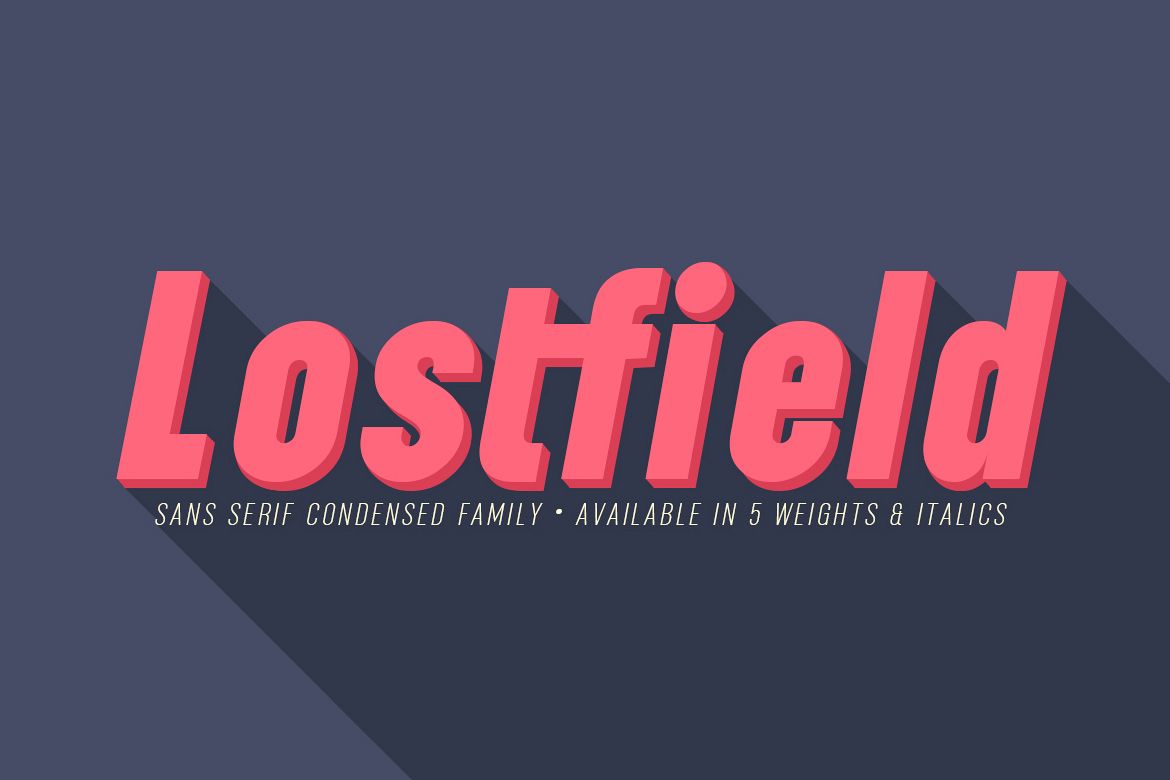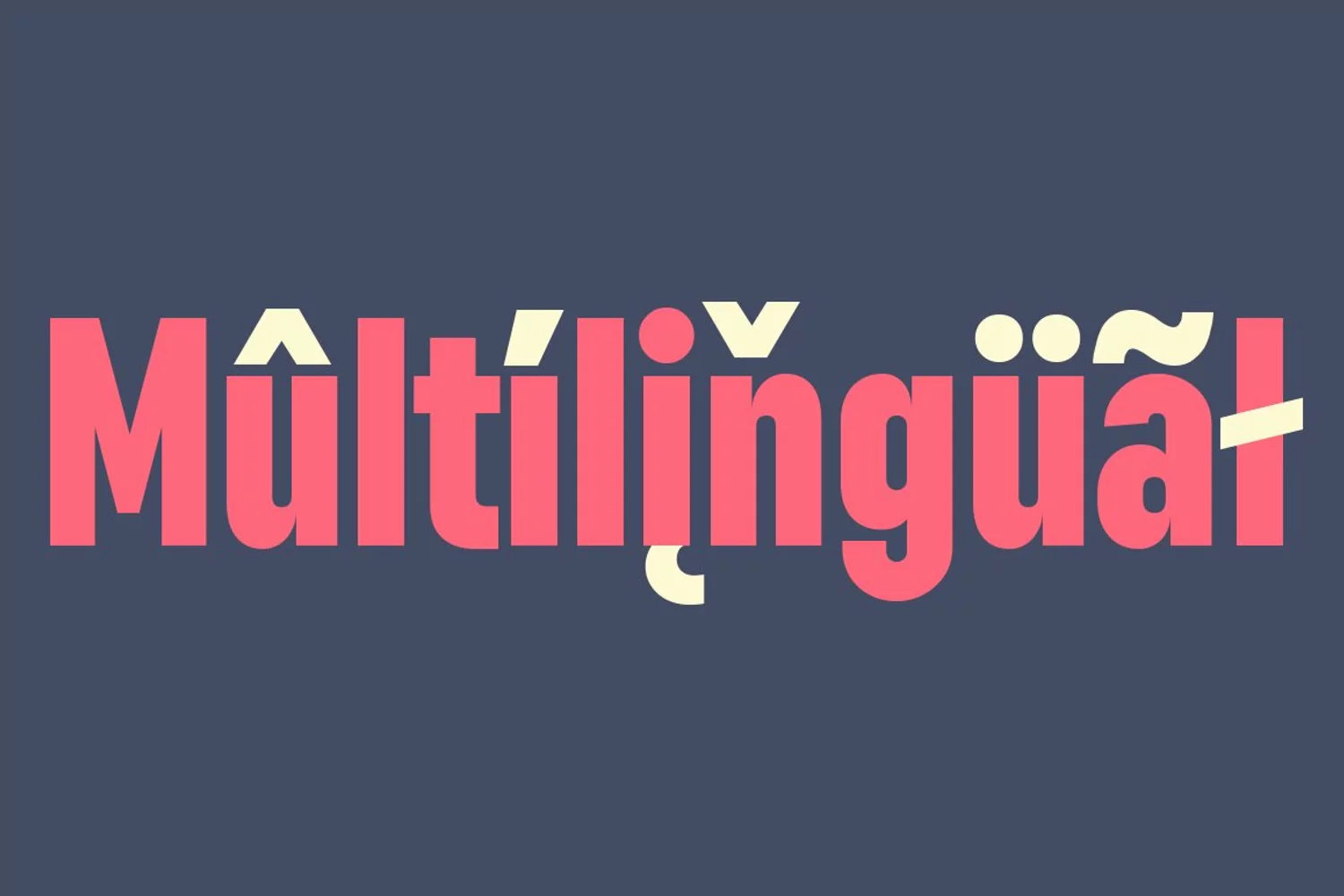
Lostfield Sans Font
Lostfield Sans Font is a bold sans serif with condensed black italic, condensed black, condensed bold italic, condensed bold, condensed light italic, condensed light, condensed medium italic, condensed medium, condensed regular & condensed regular. Lostfield Sans Font is perfectly suited to branding, logos, magazines, films, website, headlines, titles, captions, games, apps, posters, t-shirts and more.